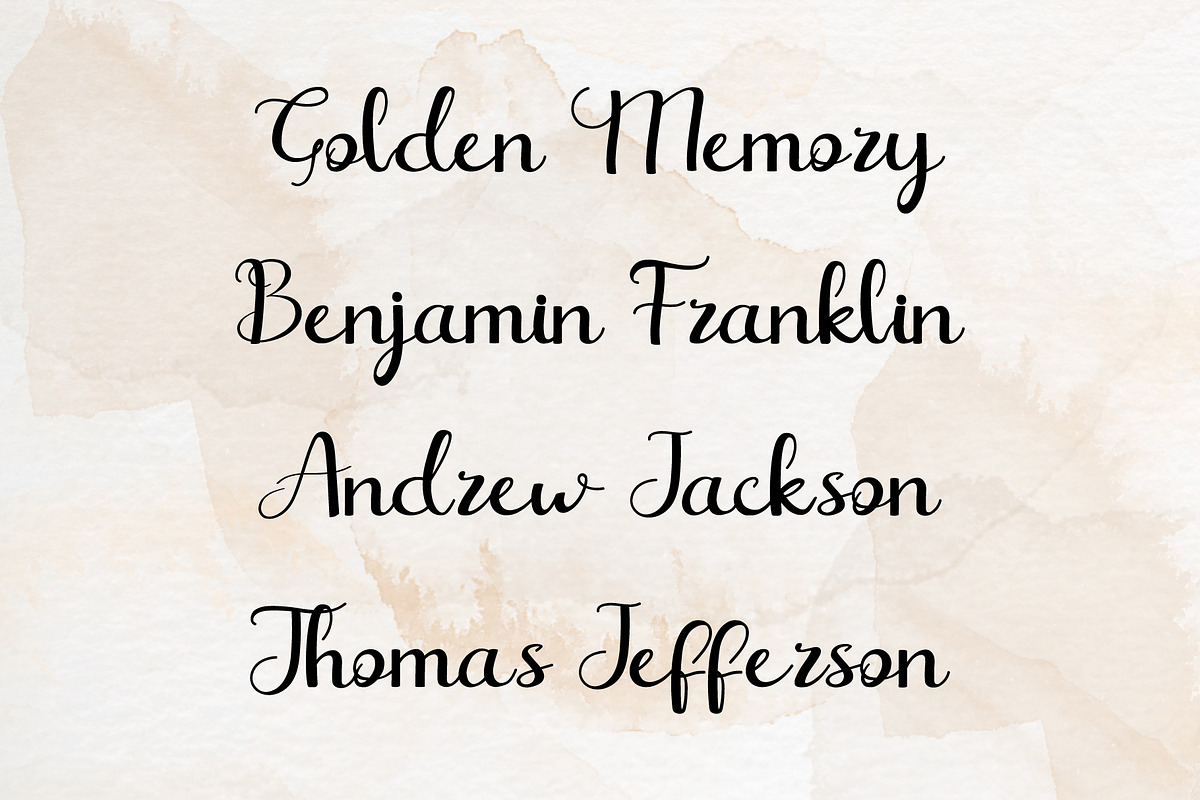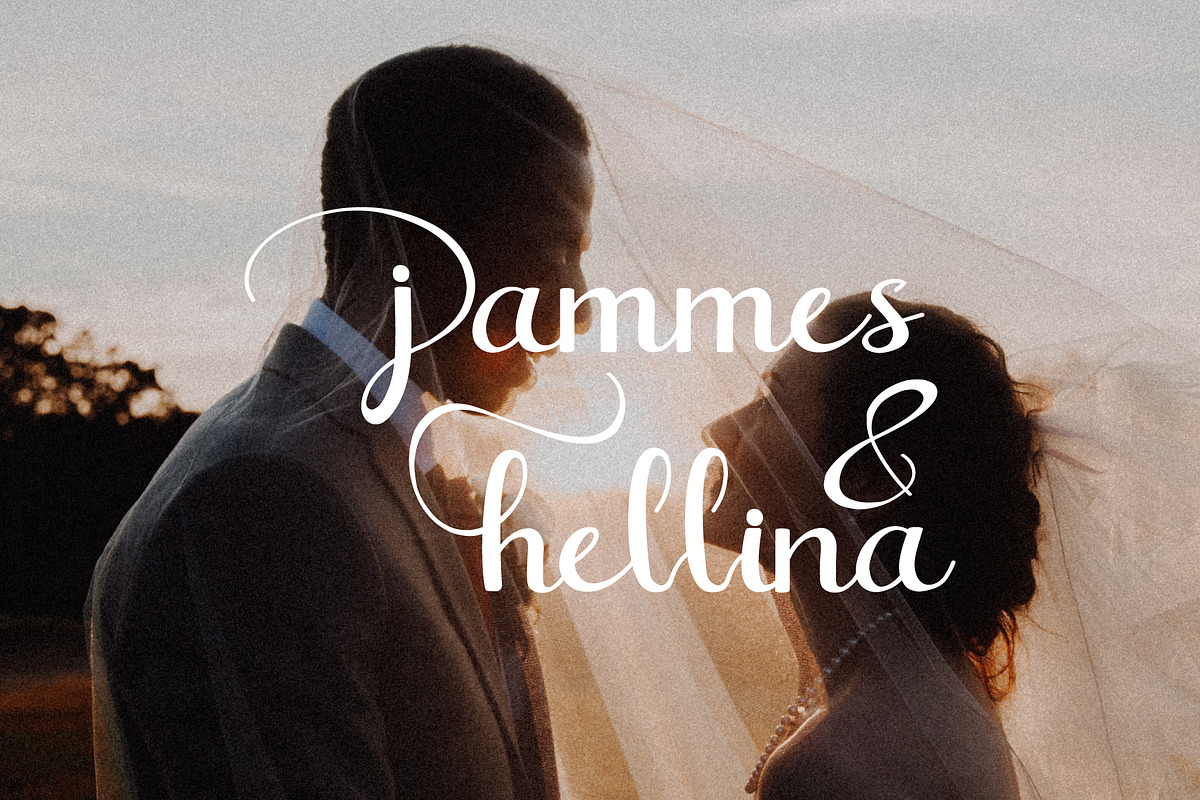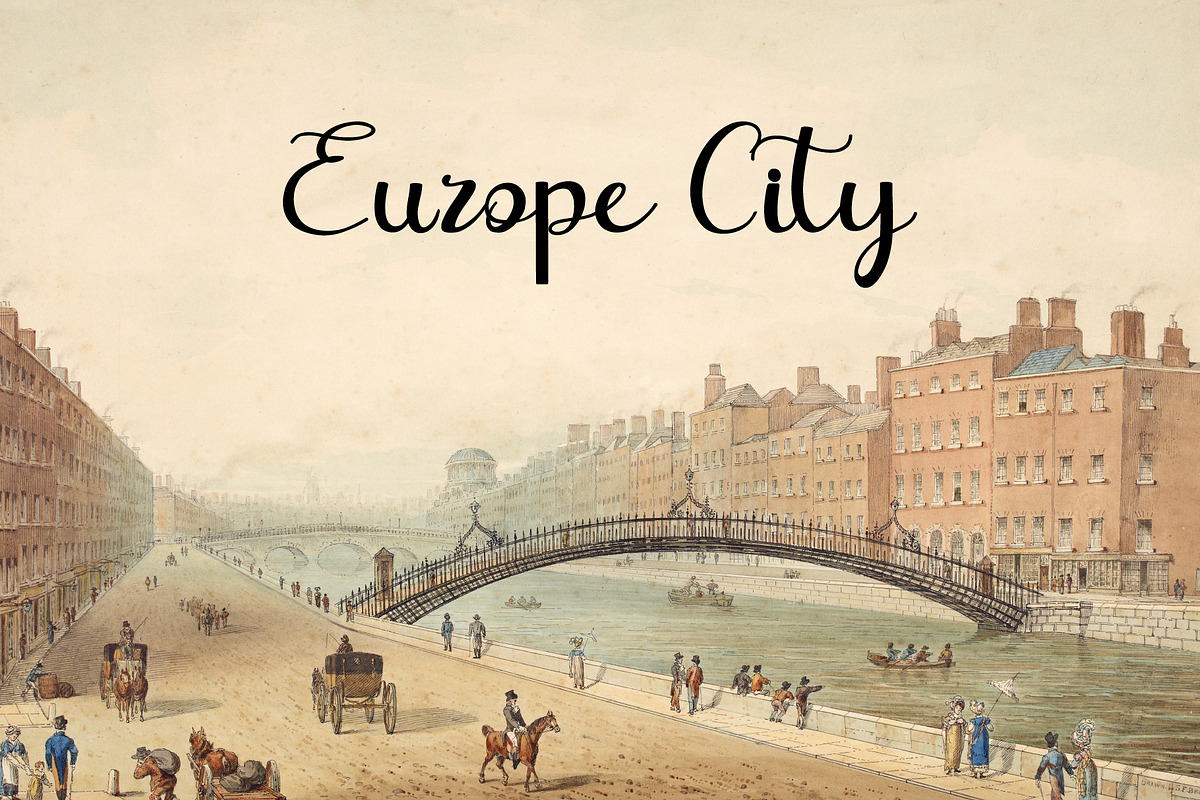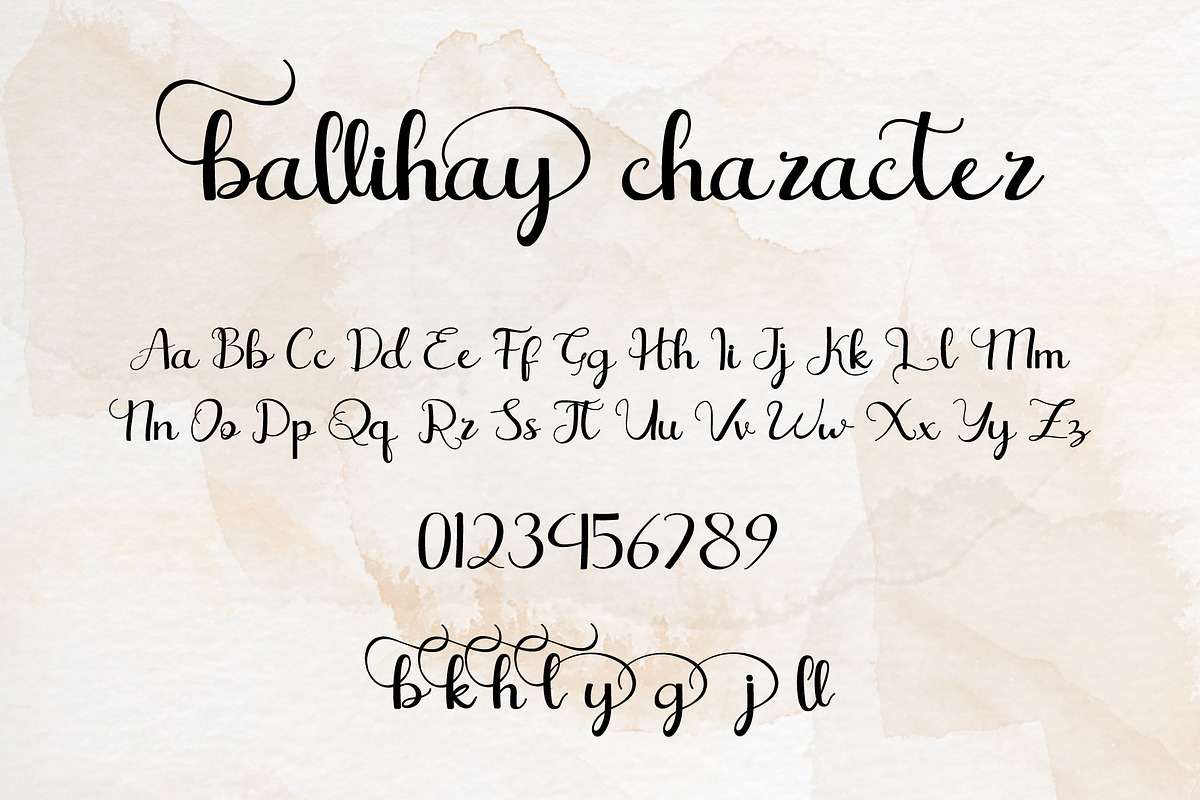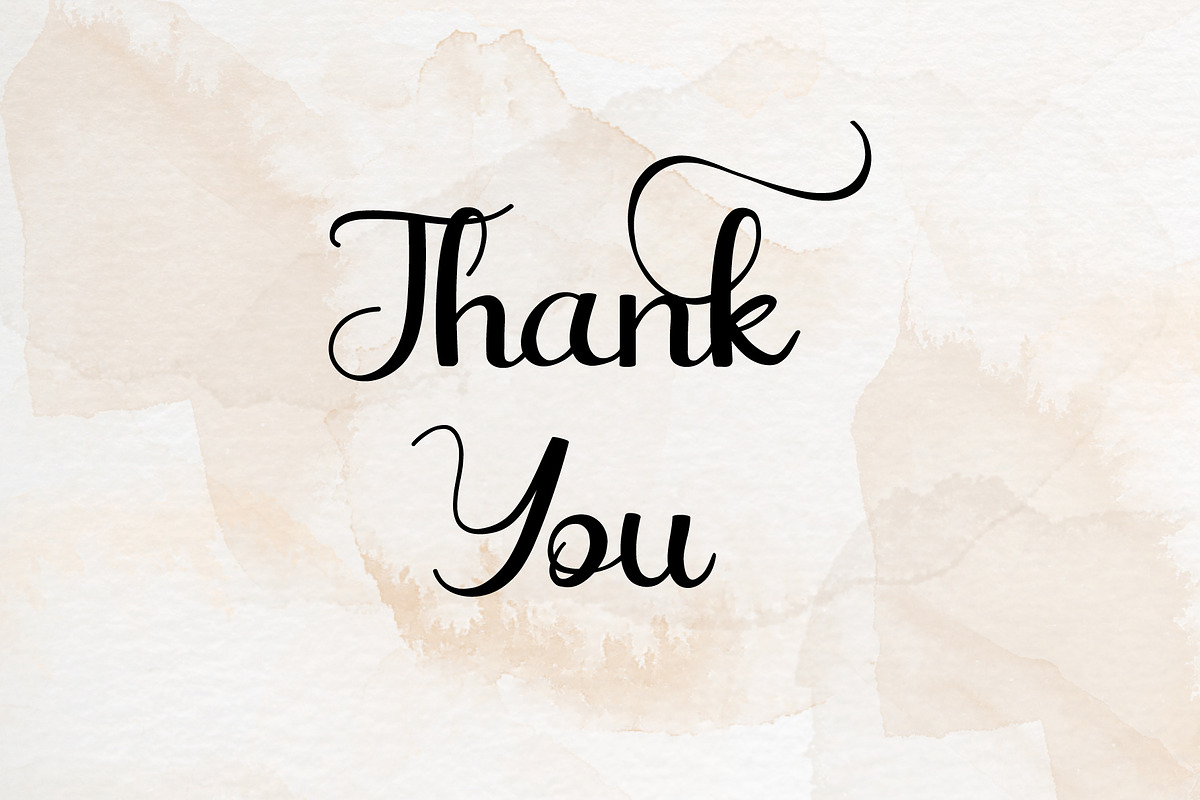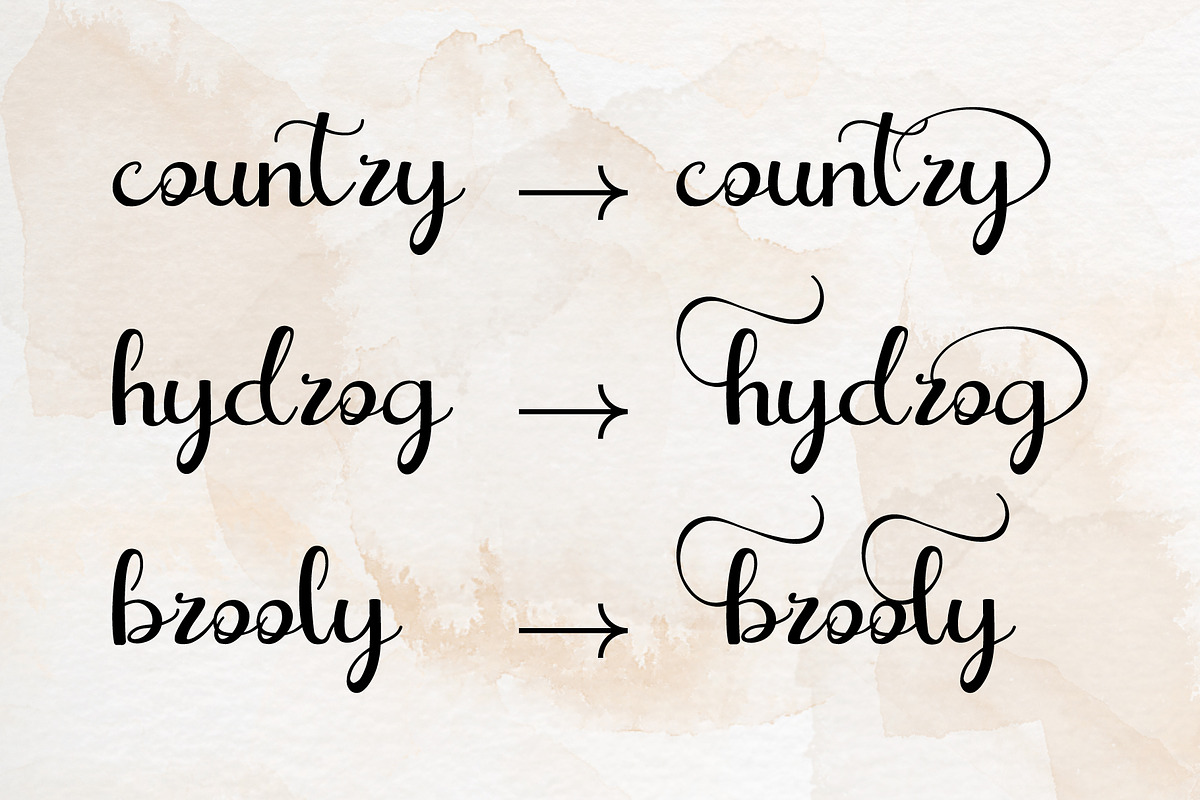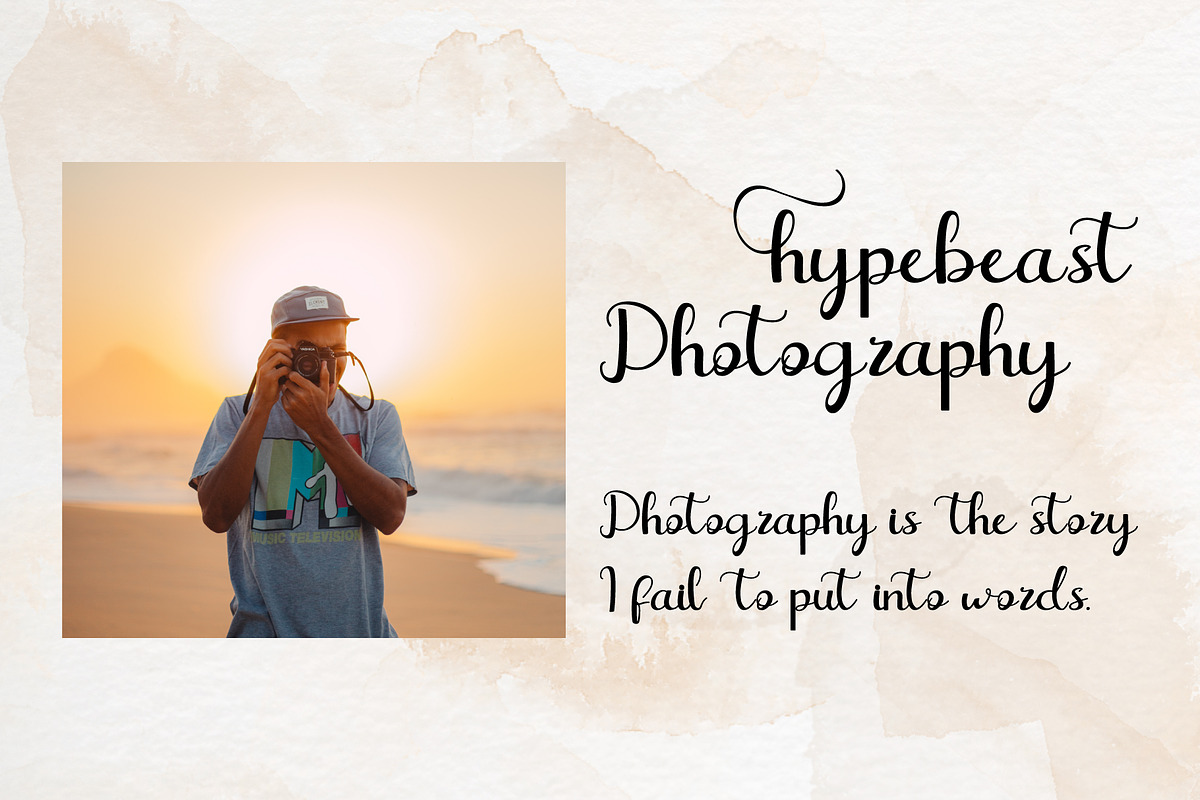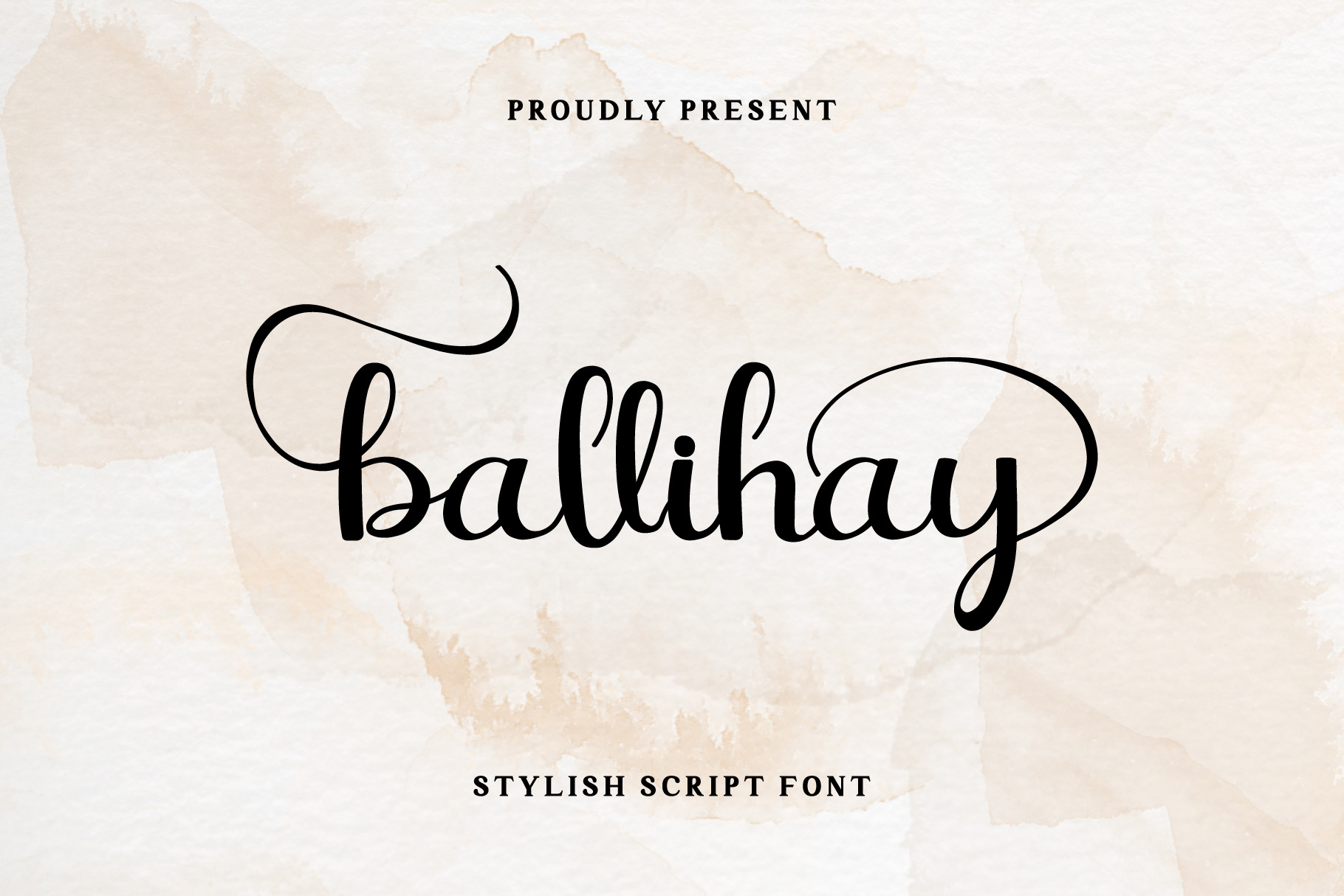
Ballihay Stylish Script Font
Ballihay is a stylish and refined handwritten font. It looks beautiful on a variety of designs requiring a personalized style, such as wedding invitations, thank you cards, weddings, greeting cards, logos and so much more. This font is PUA encoded which means you can access all of the glyphs and swashes with ease!